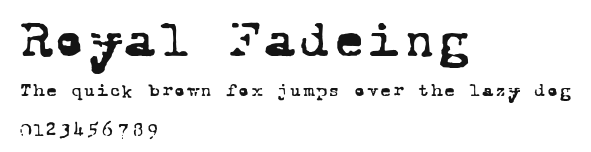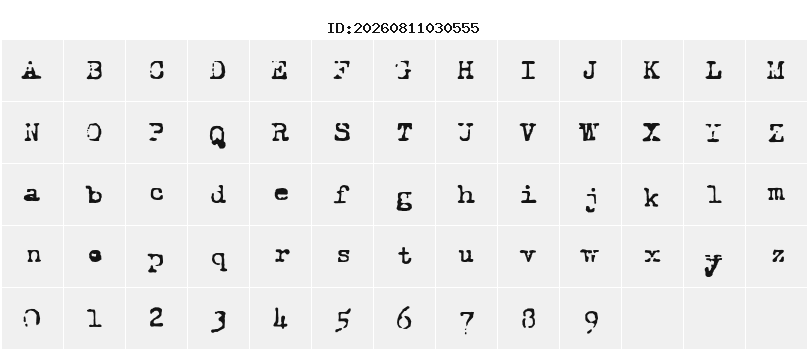
• Font Name: Royal Fadeing
• Copyright: Based on the typeface of an old Royal brand typewriter I bought at a garage sale for 50 cents. InDigest AvantFonts / PO Box 480 / Denville NJ 07834-0480. Email: